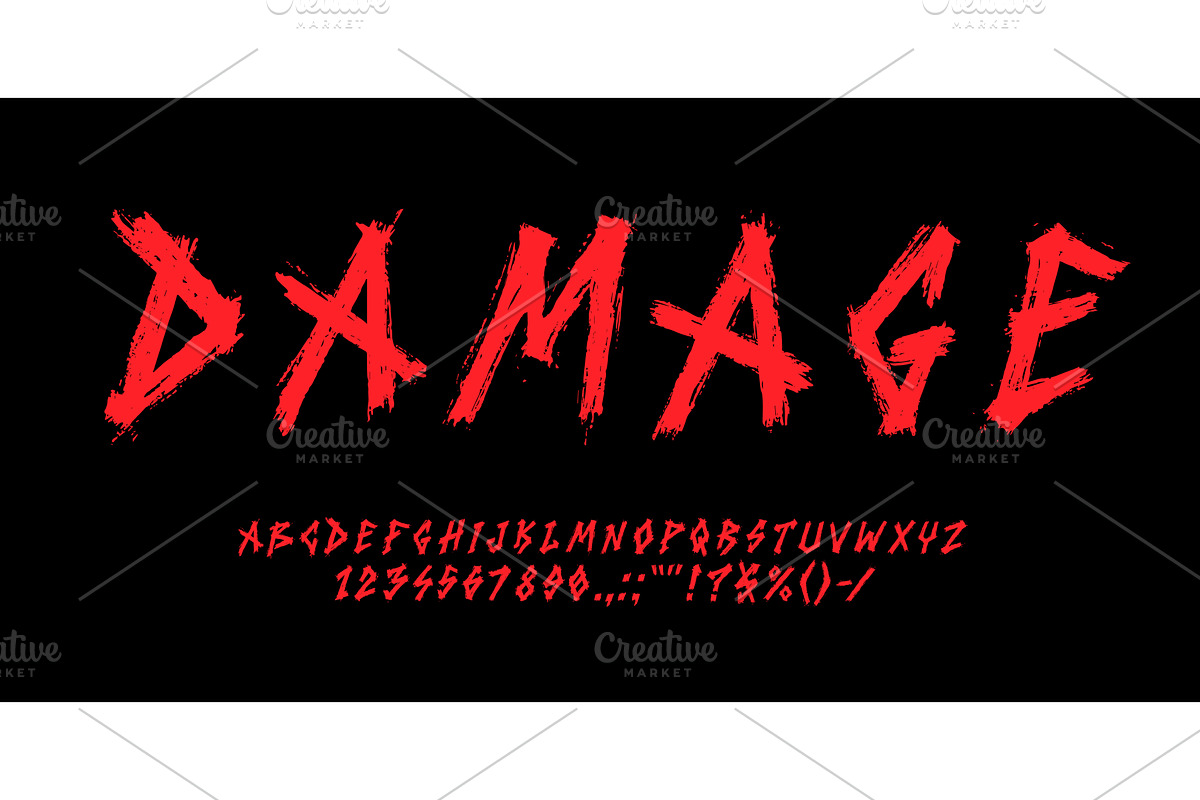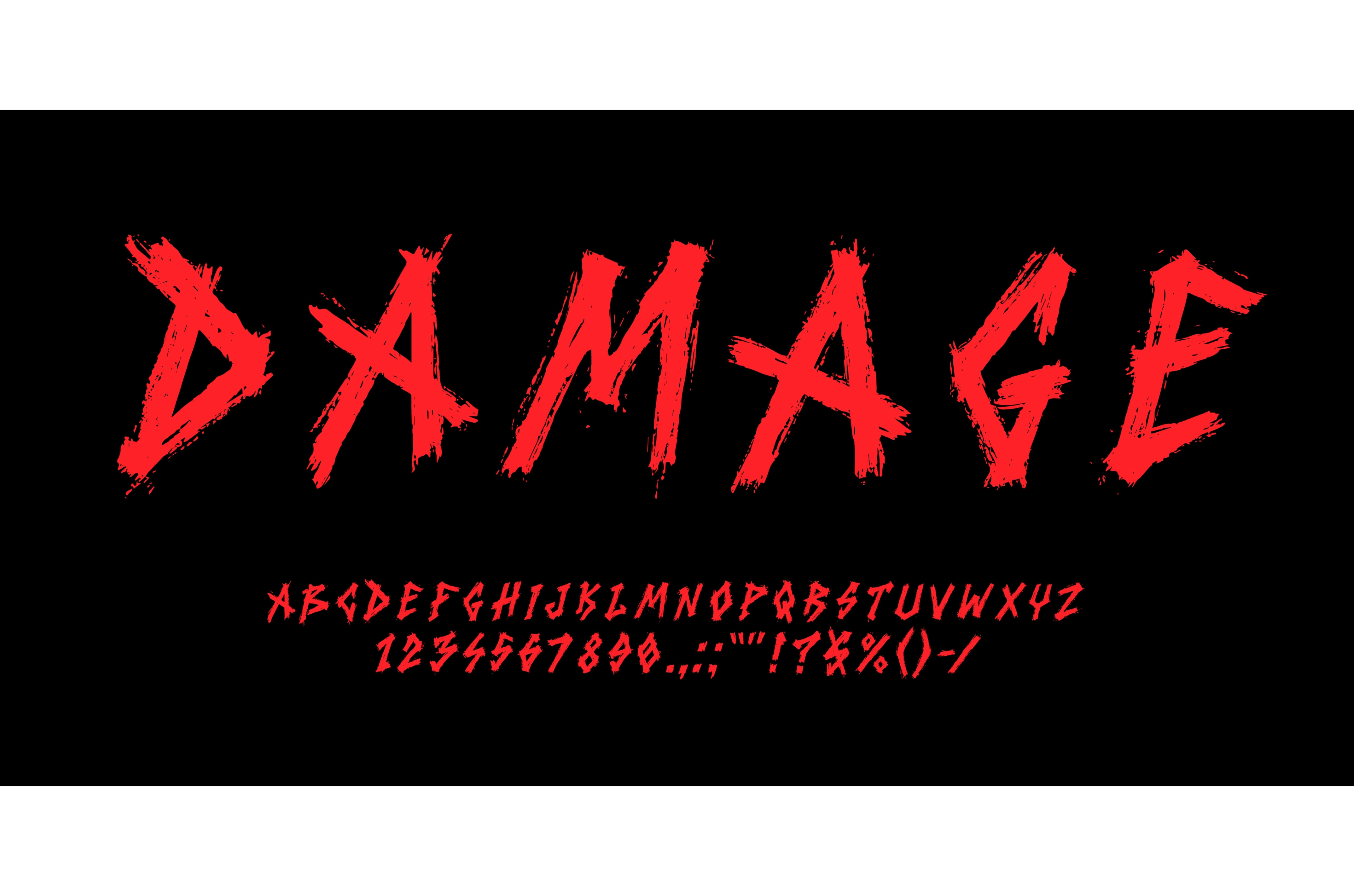
Rock n roll music font, grunge type
Rock n roll music font, graffiti type, grunge typeface, punk alphabet on black background, vector typography. Handwritten letters and digits of rock n roll font, red paint brush strokes english abc